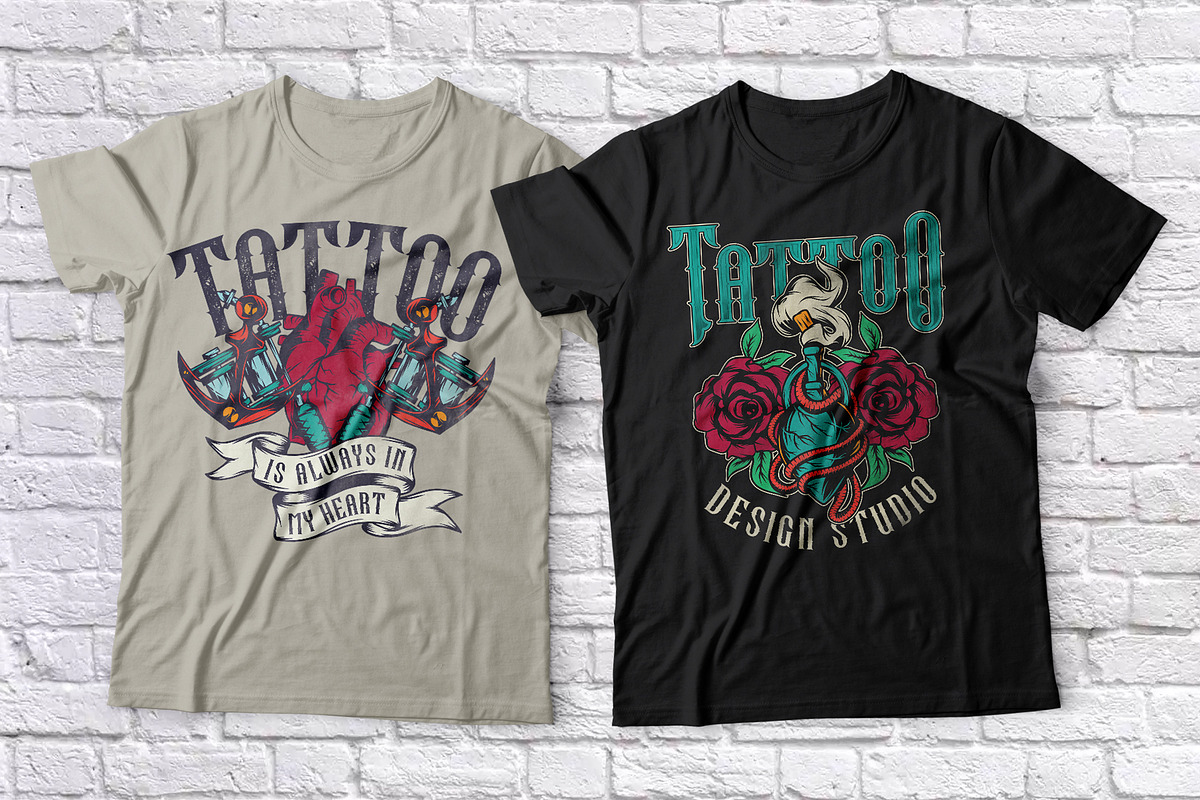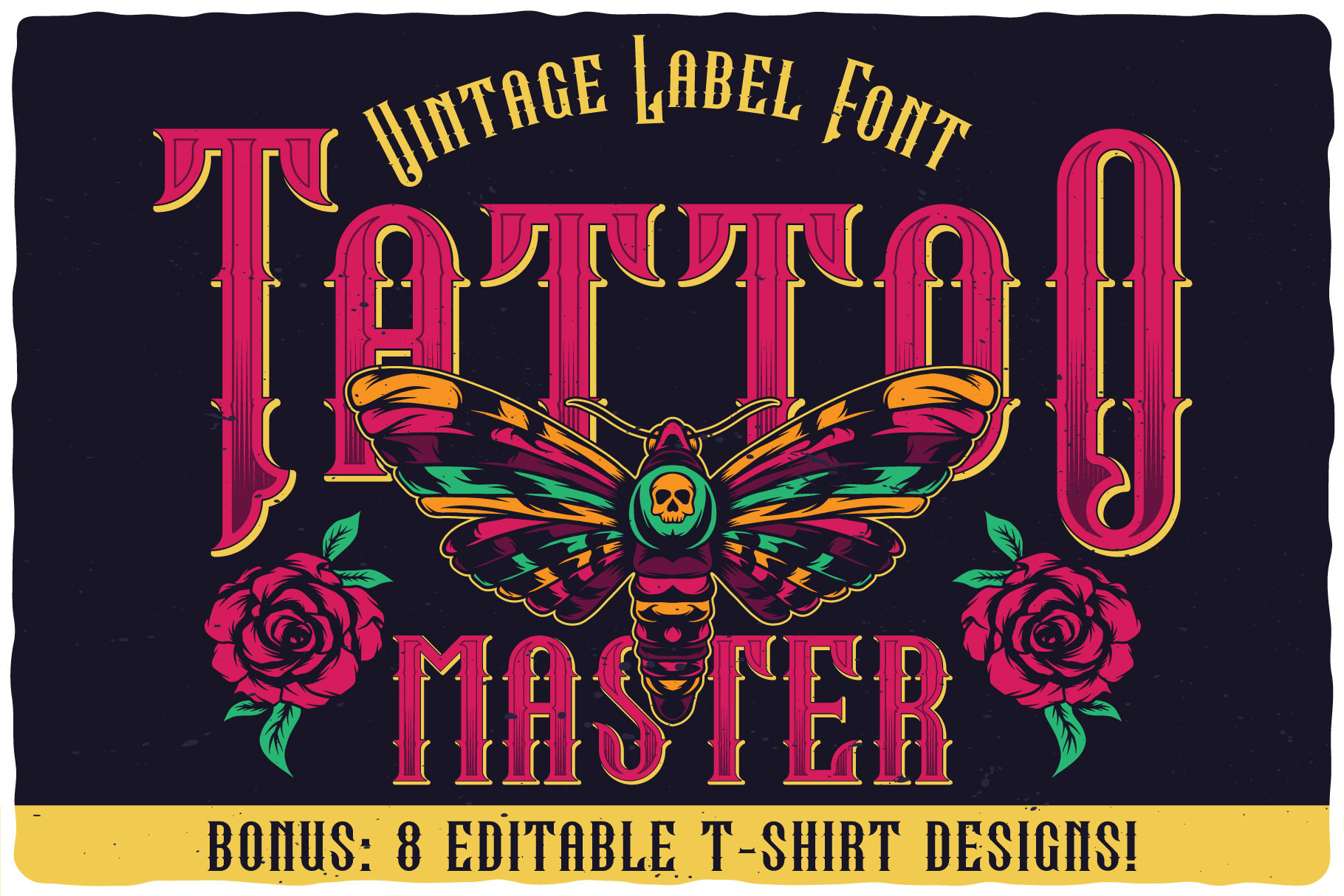
Tattoo Master label font
Introducing a vintage look label font named "Tattoo Master". This family includes five styles - Regular, Texture, Shadow, Full and Aged. Samples you can find on the preview. This font will good viewed on any retro design like poster, t-shirt, label, logo etc.